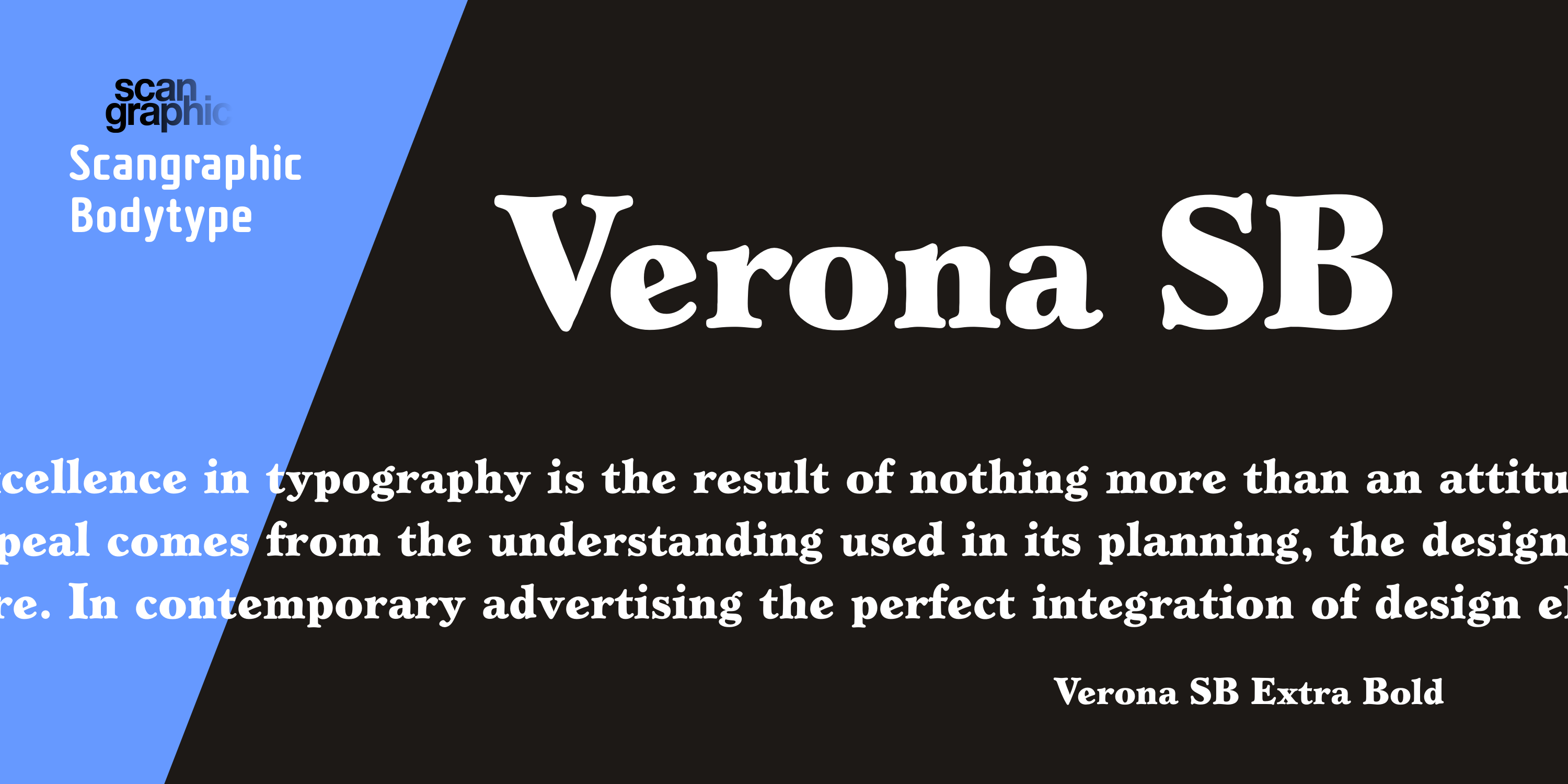
Verona SB Font is perfect for Italian restaurant branding, romantic wedding invitations, luxury travel marketing, classical architecture presentations, wine label designs, European fashion branding, elegant hotel marketing, cultural heritage projects, fine dining menus, and sophisticated editorial layouts.
What makes Verona SB Font exciting is its extraordinary ability to capture the timeless romance and architectural elegance of Italy's most beloved city through refined letterforms that embody centuries of artistic tradition and cultural sophistication. This magnificent typeface features graceful characters with classical proportions and elegant flourishes that perfectly reflect the Renaissance beauty and romantic atmosphere of historic Verona. The font's sophisticated personality combines Old World charm with contemporary functionality, creating typography that feels both historically authentic and refreshingly modern. Each character demonstrates exquisite craftsmanship with subtle curves, balanced spacing, and refined details that evoke the artistic mastery of Italian Renaissance masters while ensuring optimal readability for modern applications.
The Verona SB Font family includes enchanting variations: Verona SB Regular, Verona SB Bold, Verona SB Light, Verona SB Medium, Verona SB Condensed, Verona SB Extended, and Verona SB Italic. Each style maintains the signature Italian elegance while offering different weights and expressions for creating sophisticated brand systems and romantic design hierarchies.
Whether you're developing luxury hospitality branding, creating romantic event materials, or designing cultural content celebrating Italian heritage, Verona SB Font Free Download delivers exceptional typography that transports audiences to the romantic streets and artistic legacy of one of Europe's most enchanting cities. This remarkable typeface successfully channels the essence of Italian sophistication while meeting the professional standards required for contemporary design applications.
The font's romantic character makes it particularly effective for wedding industry professionals and event planners seeking typography that captures the dream of Italian romance and destination celebrations. Verona SB Font communicates elegance and timeless love, essential qualities for businesses serving couples who envision their special day infused with European sophistication. Luxury hotels and resorts frequently choose this typeface for their branding materials, where its refined appearance reinforces their commitment to providing guests with authentic Italian hospitality experiences.
Fine dining establishments and wine bars find Verona SB Font especially valuable for creating memorable brand identities that reflect their dedication to Italian culinary traditions and sophisticated dining experiences. The font's classical elegance perfectly complements premium food and wine presentations while maintaining the readability necessary for menu design and promotional communications.
Verona SB Font's distinctive character makes it ideal for luxury travel companies and cultural tourism organizations promoting Italian destinations, art tours, and cultural experiences where sophisticated typography helps convey the refined nature of their offerings. The font helps establish premium positioning while appealing to travelers seeking authentic cultural immersion and artistic appreciation.
Fashion brands and luxury retailers appreciate how Verona SB Font enhances their marketing materials by providing typography that reflects European design sensibilities and timeless style. The font's classical proportions work beautifully for brands seeking to associate themselves with Italian craftsmanship and sophisticated aesthetics.
The technical excellence of Verona SB Font includes comprehensive character sets, advanced OpenType features, and carefully optimized spacing that ensures professional results across various applications from elegant print materials to sophisticated digital experiences.
For creative professionals seeking typography that embodies Italian romance and classical elegance, Verona SB Font represents the perfect choice for projects requiring sophisticated European character and timeless beauty that celebrates the artistic heritage of Italy's most romantic city.